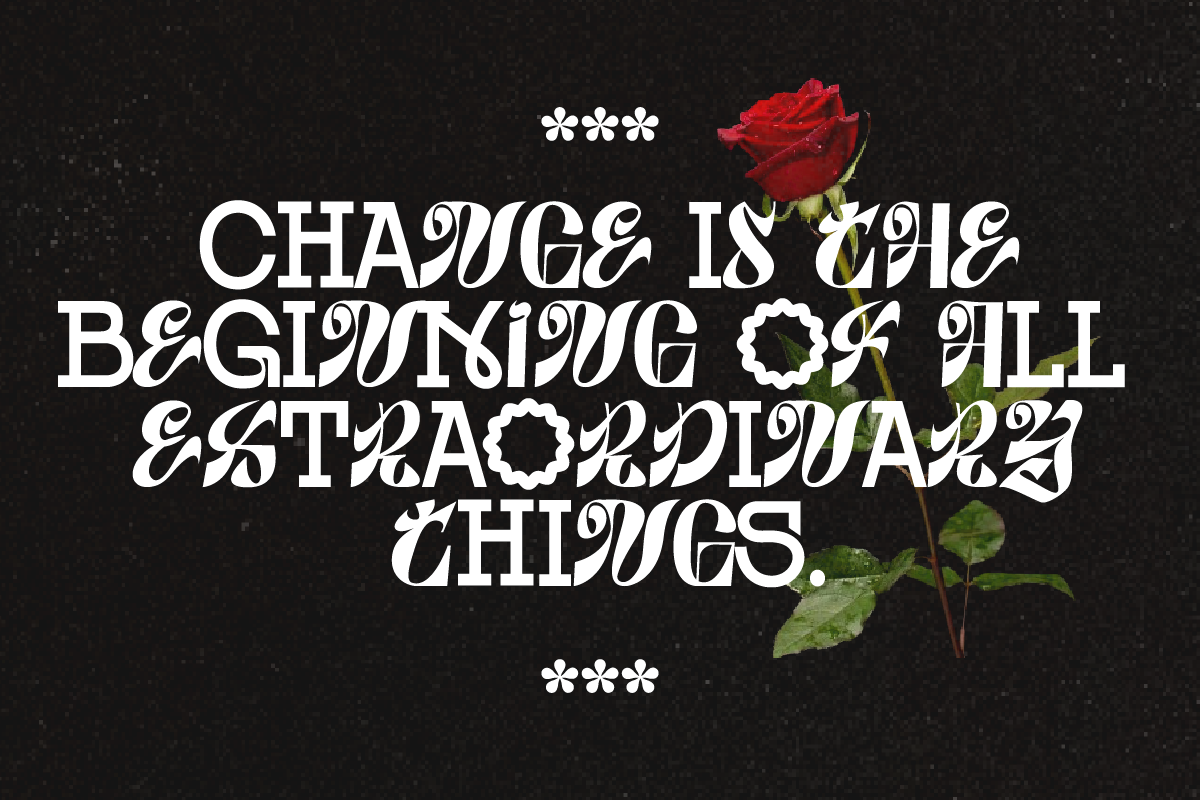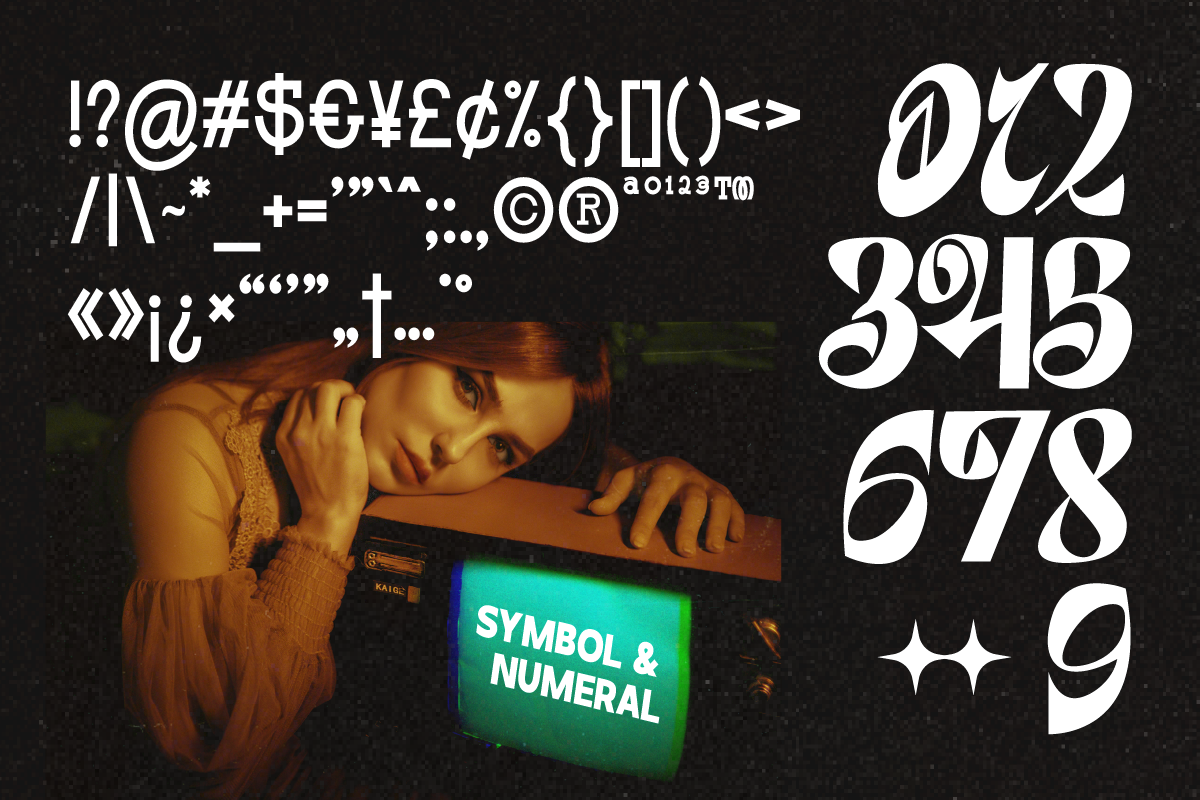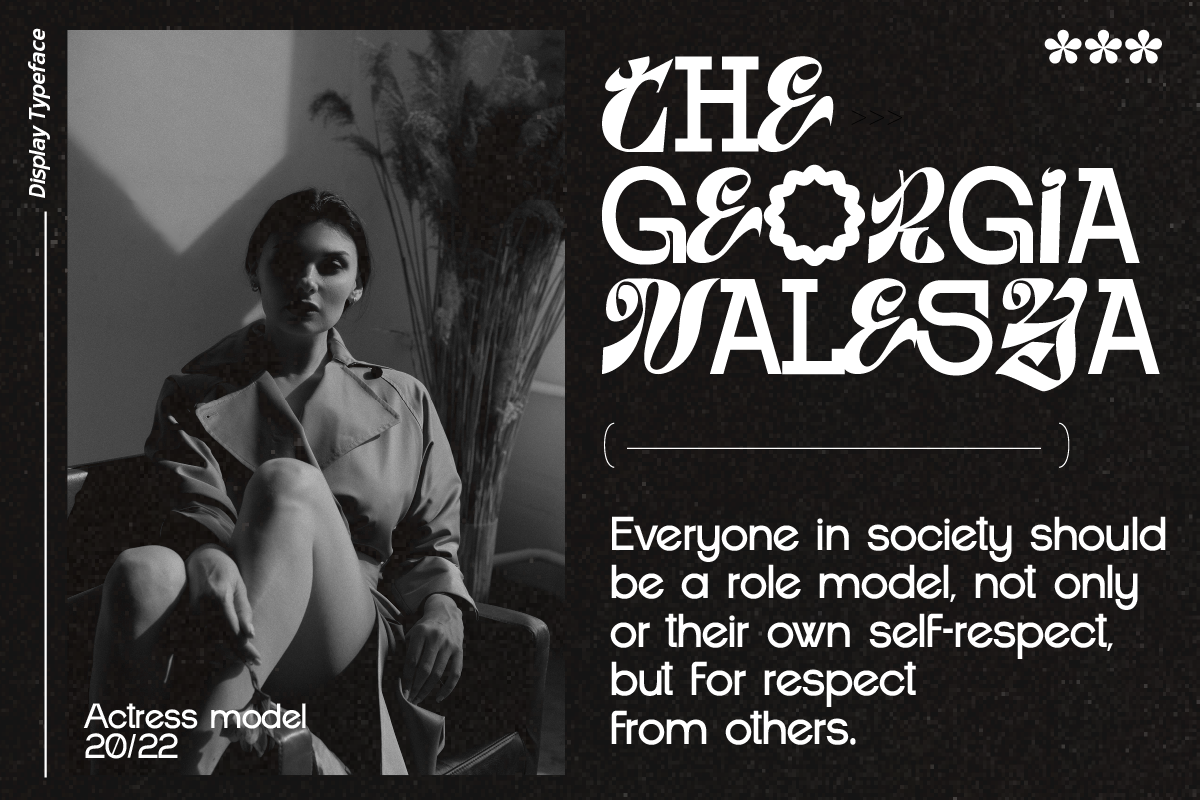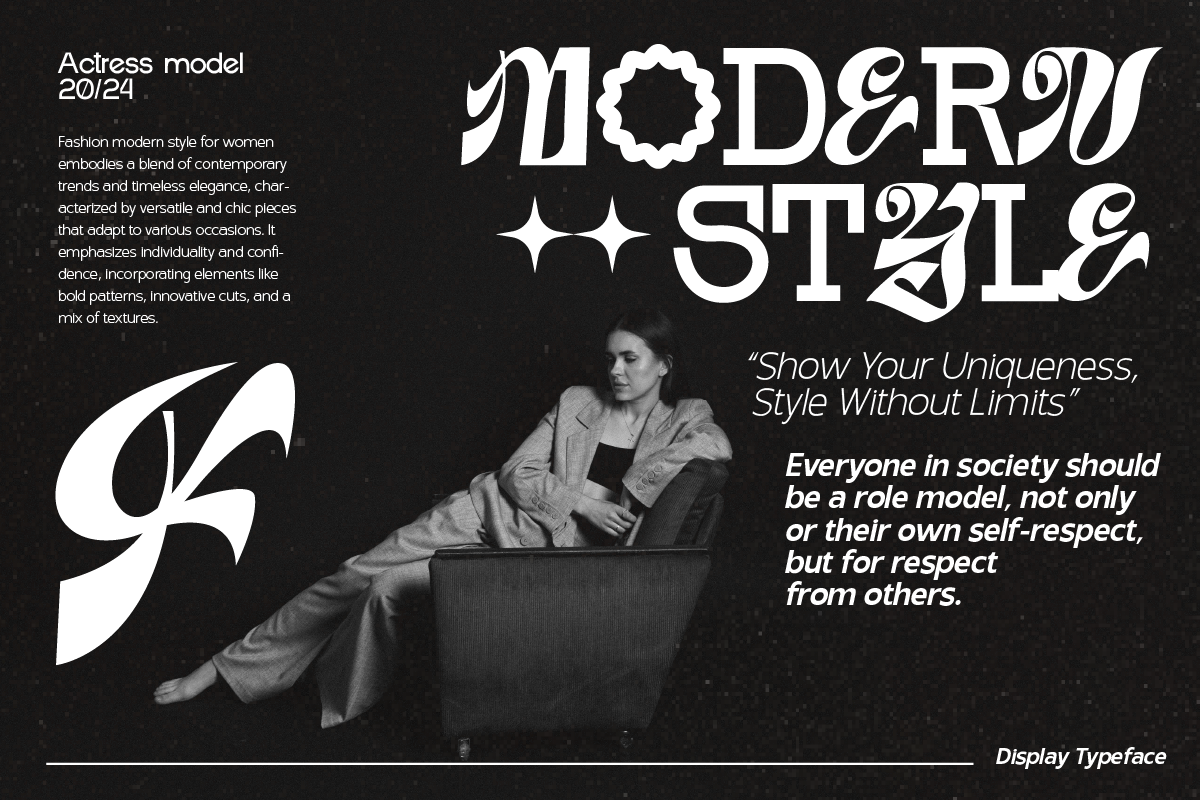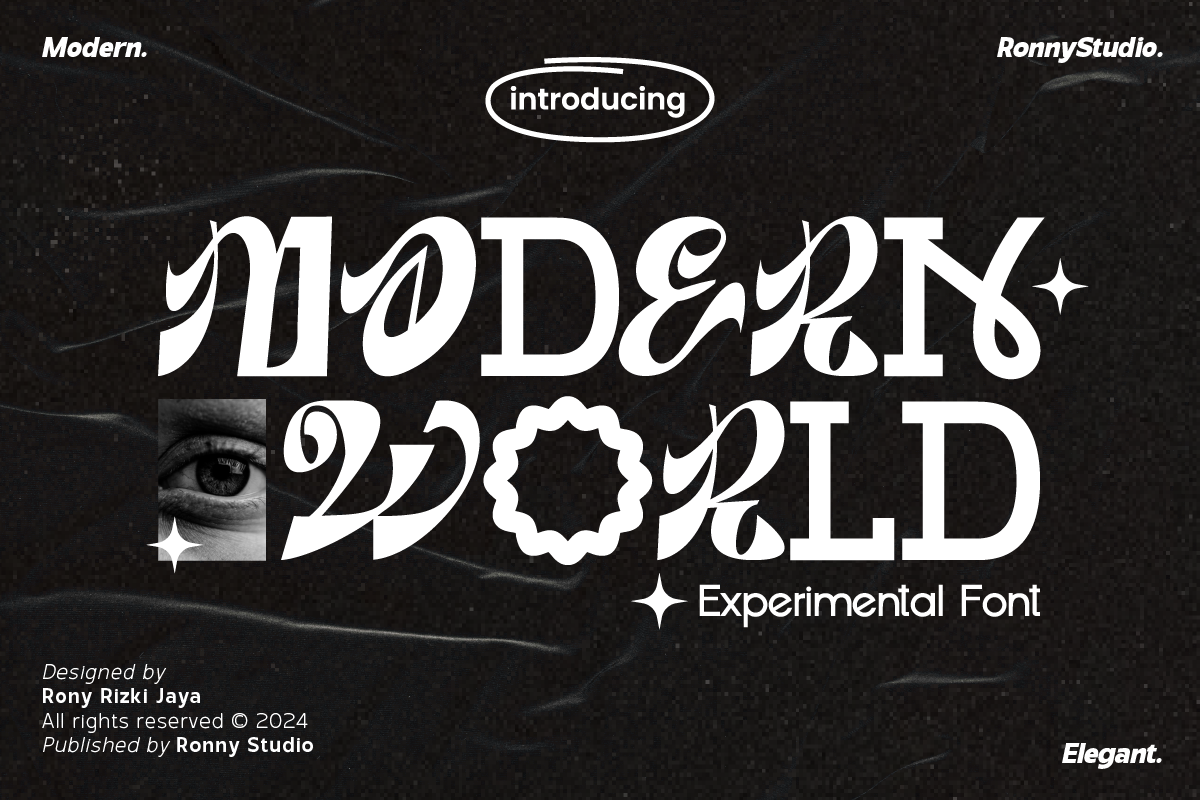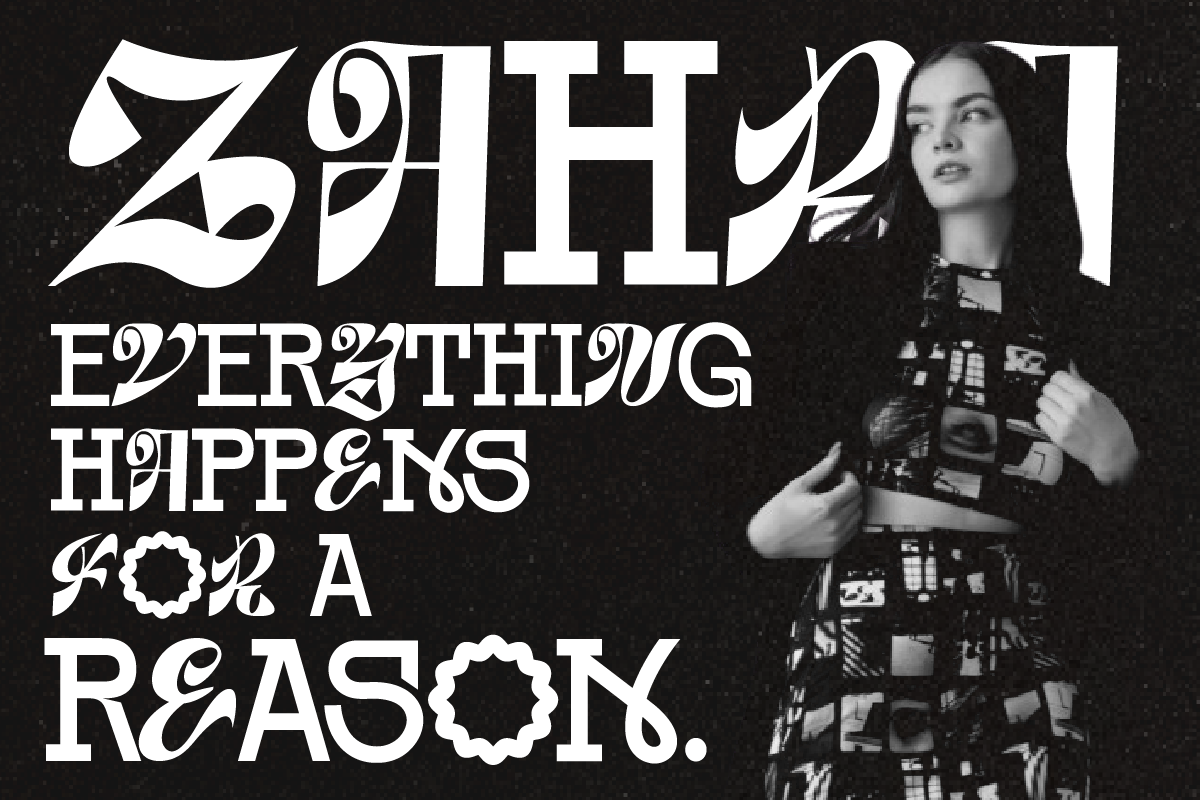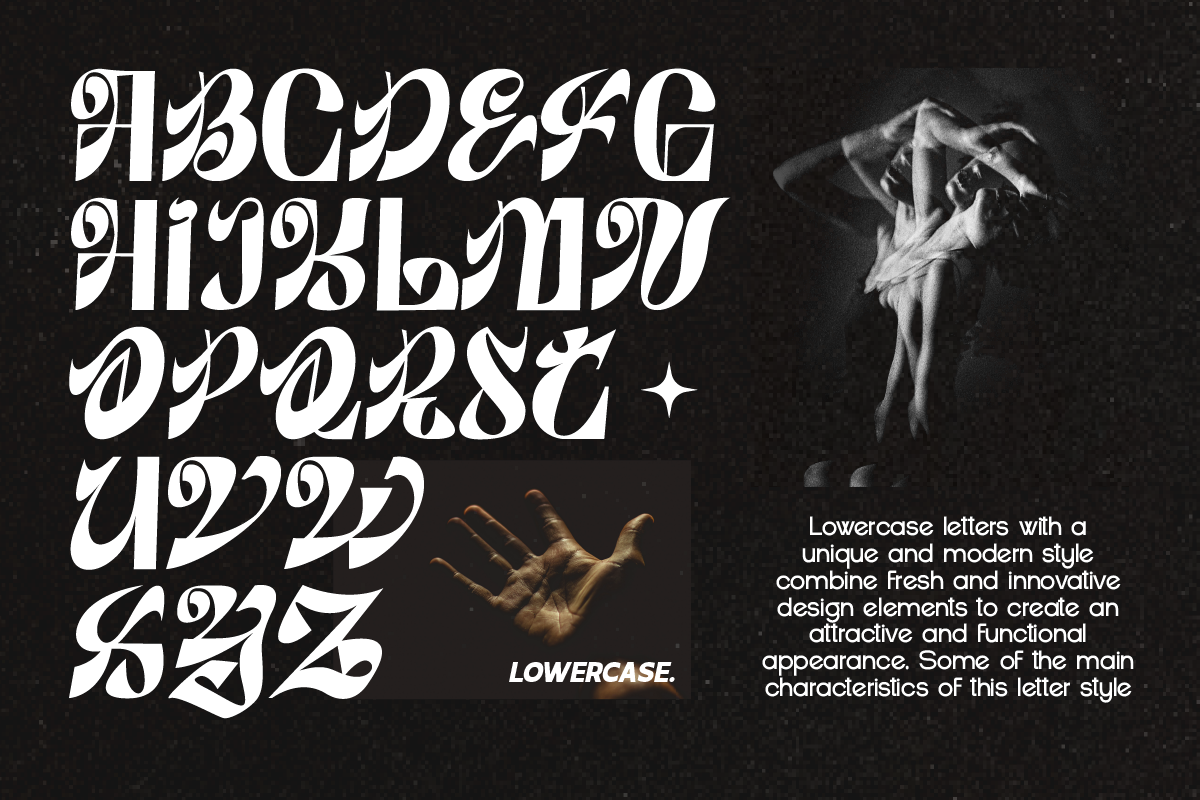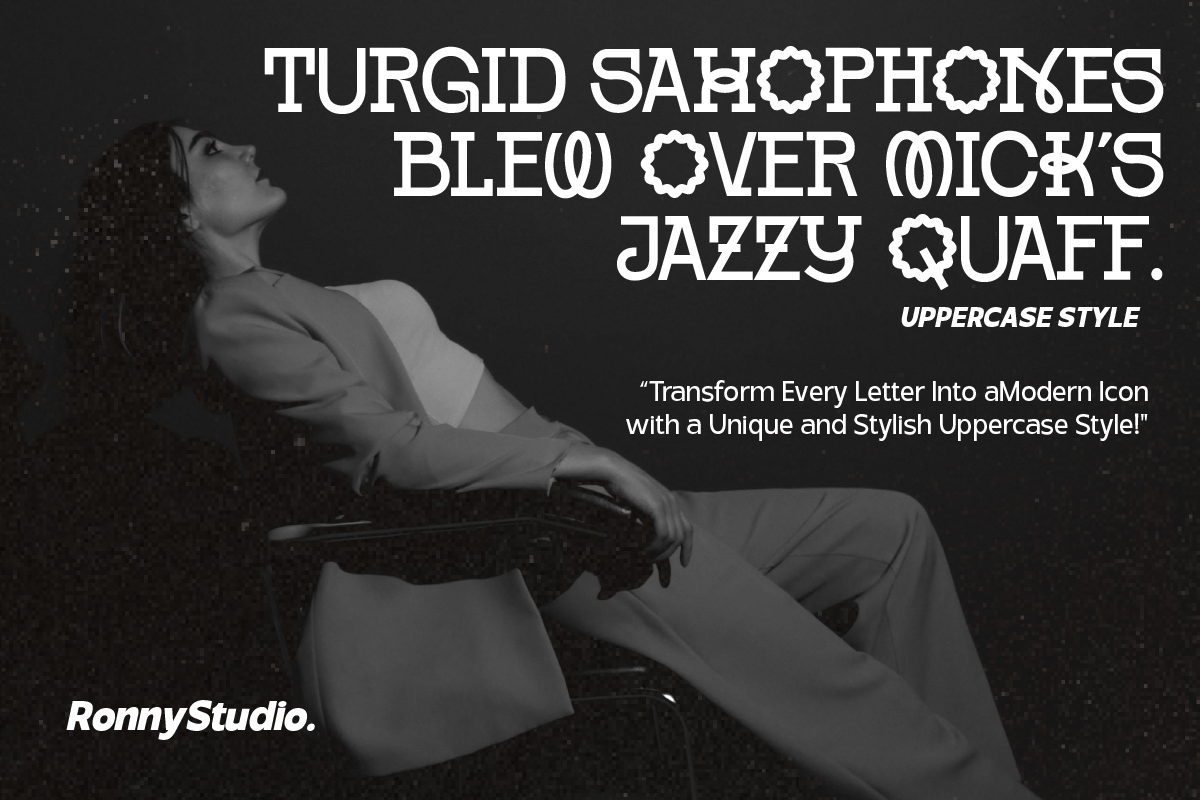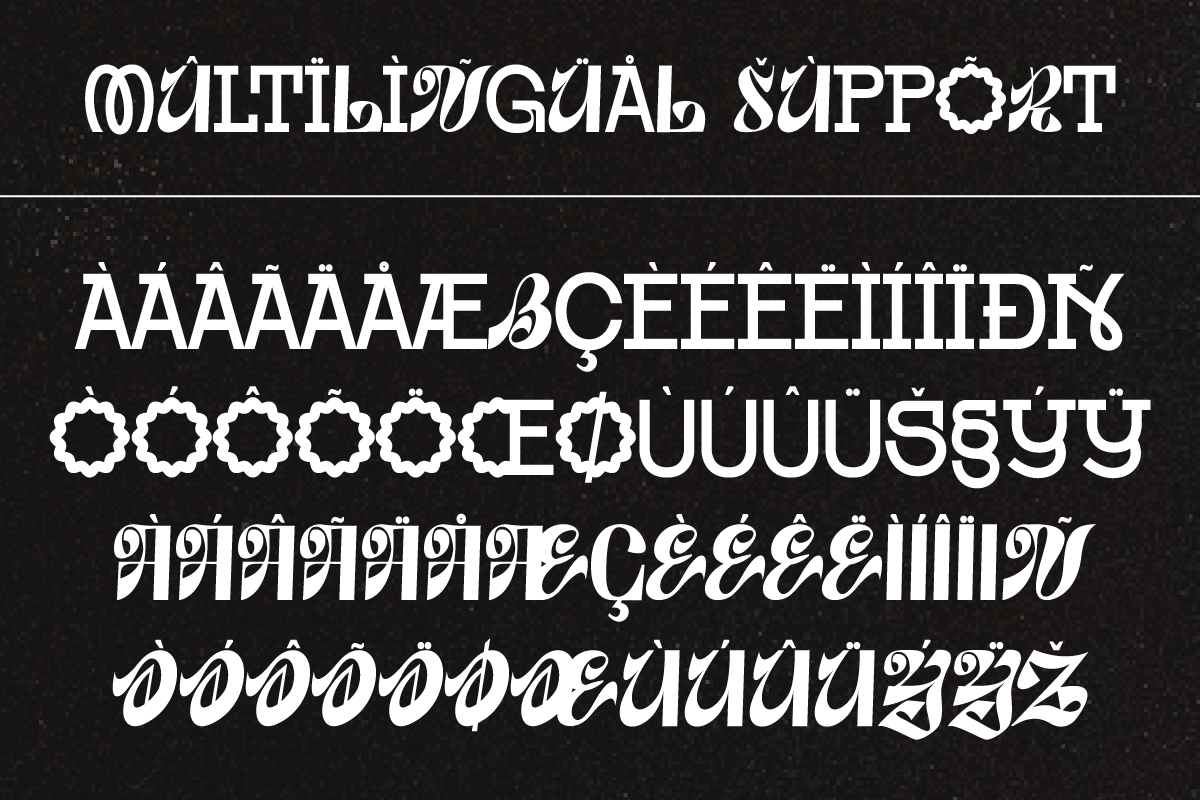
Modern World Experimental Font
Modern World – A Bold & Experimental Serif for Unique Creations ✨
Modern World is a bold, artistic, and experimental serif font that blends elegance and creativity. Designed for luxury branding, high-fashion editorials, book covers, and artistic projects, this typeface makes a statement with its unique letterforms and stylish alternates.
🌟 Key Features:
✔ Experimental & Stylish Serif – A perfect fusion of modern and vintage aesthetics.
✔ Decorative & Elegant Details – Beautifully crafted ligatures and alternates.
✔ Versatile for High-End Branding – Ideal for fashion, luxury, and editorial design.
✔ Multilingual Support – Covers a wide range of international characters.